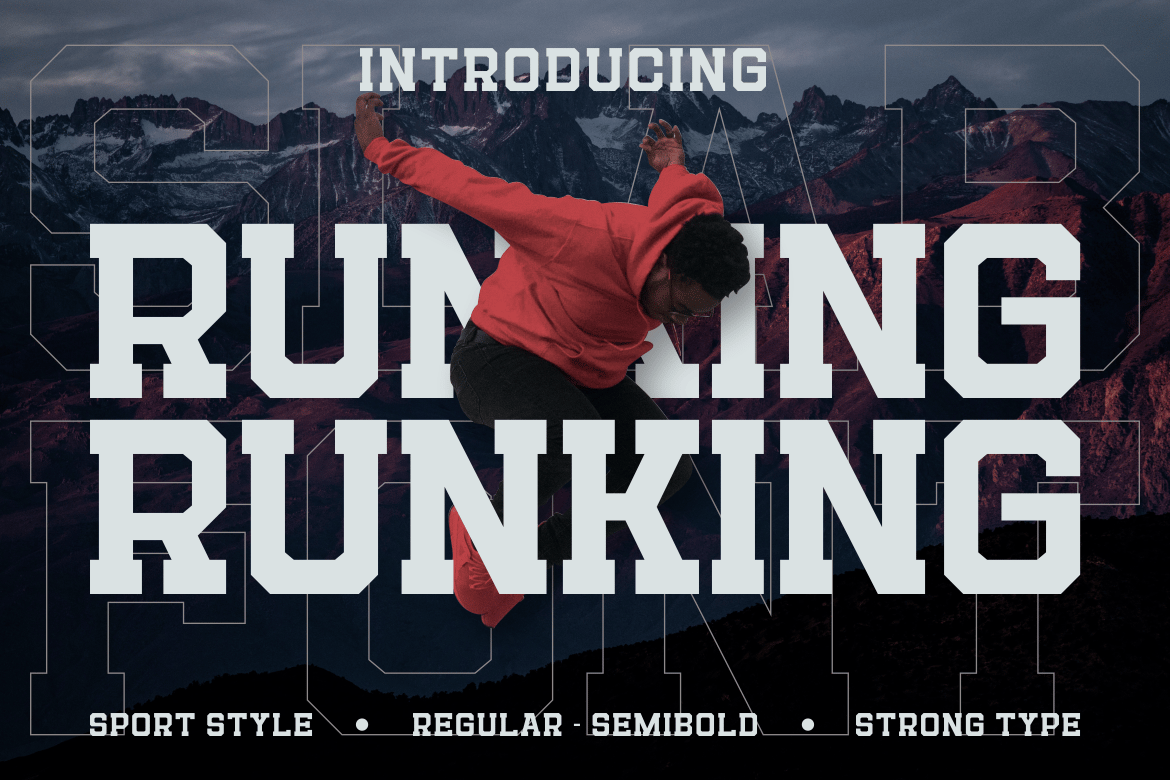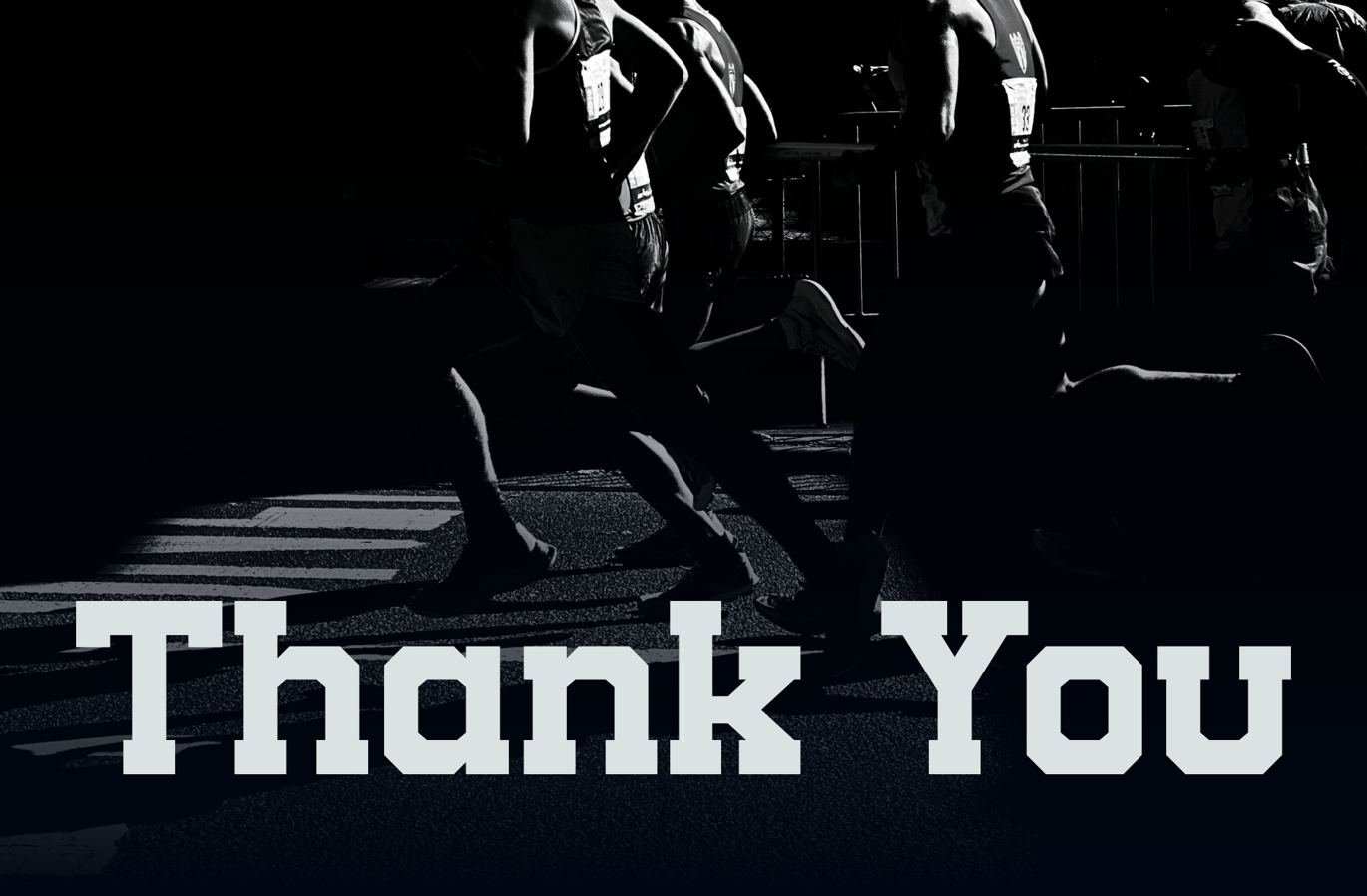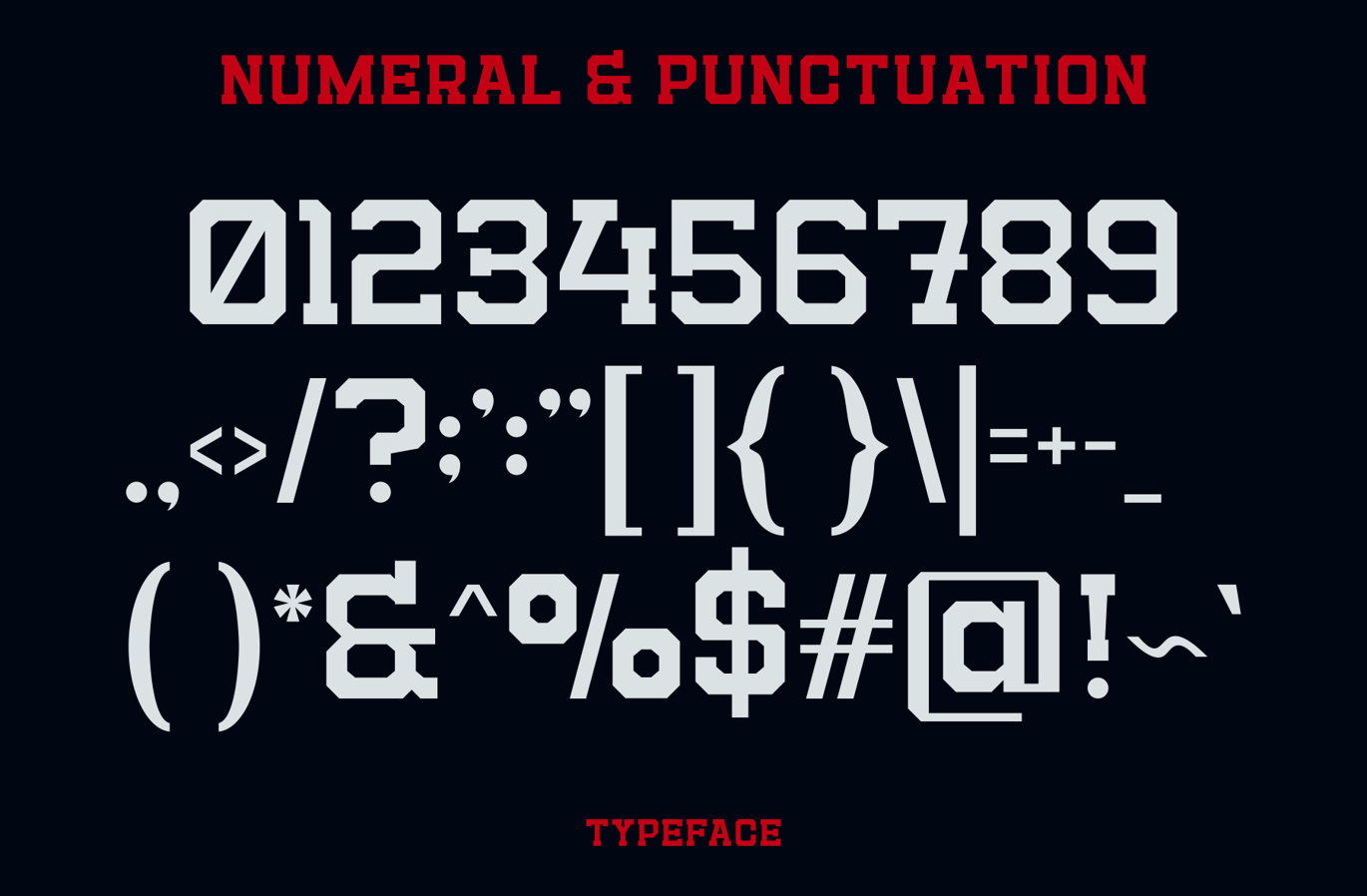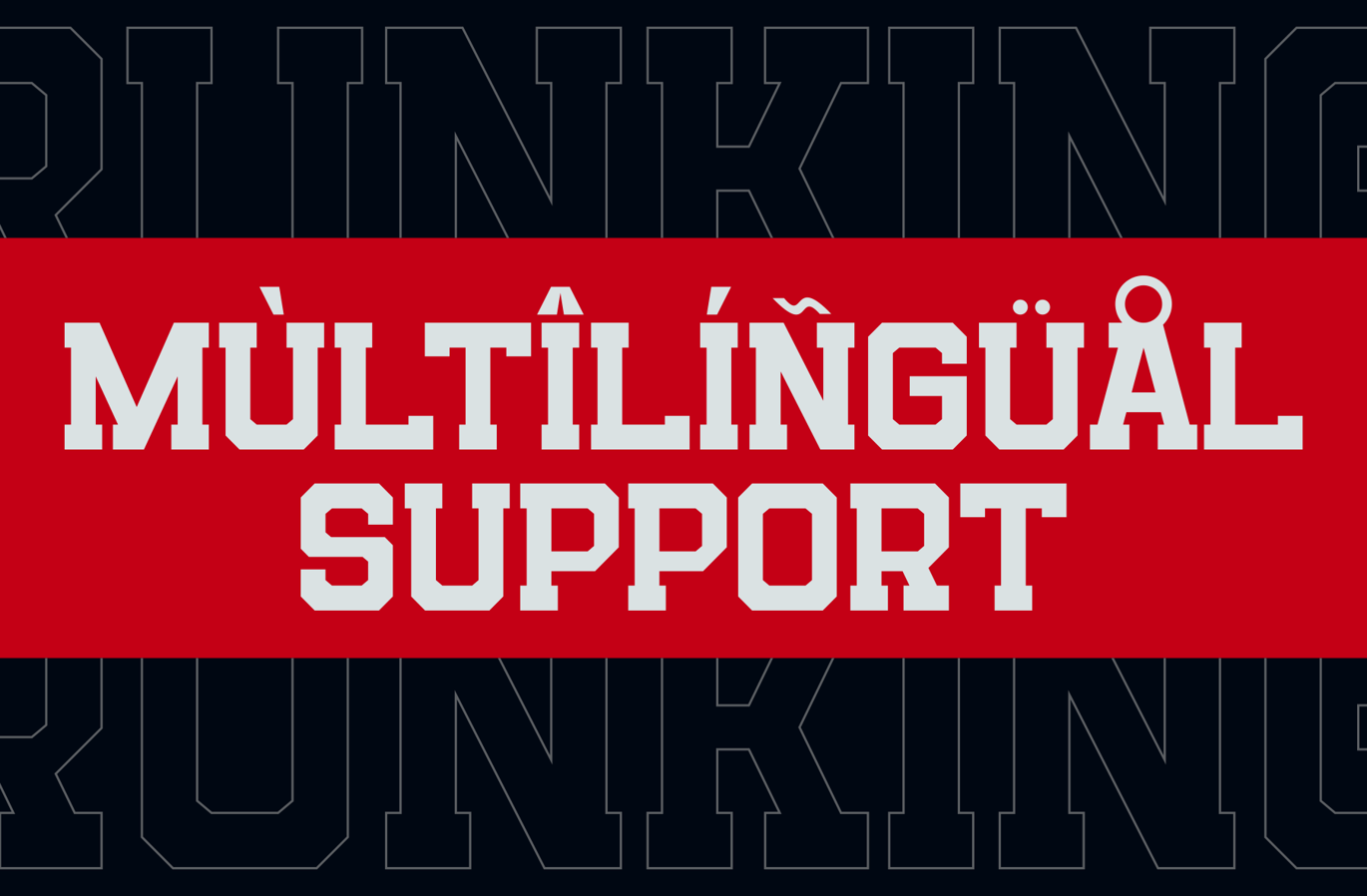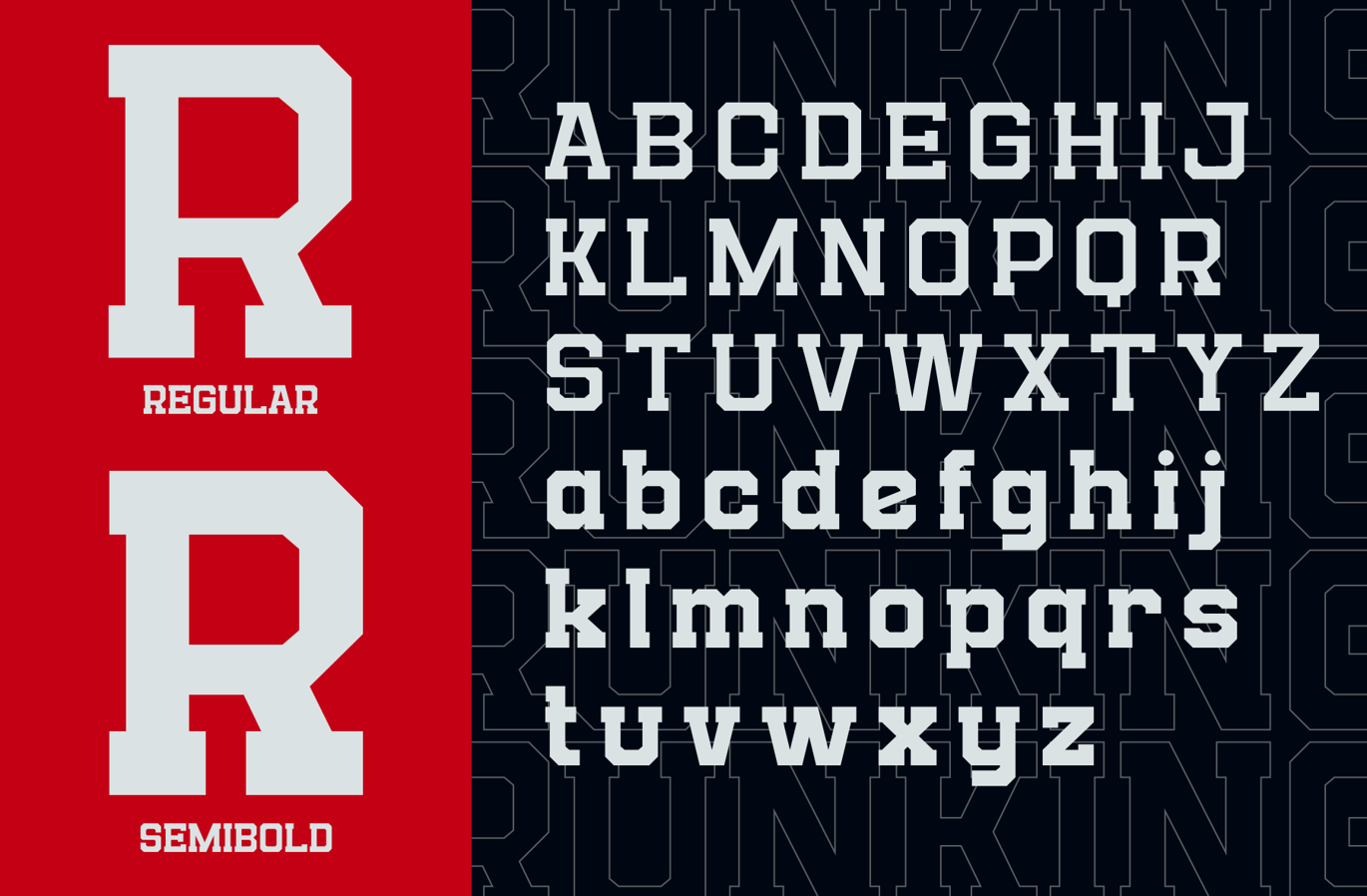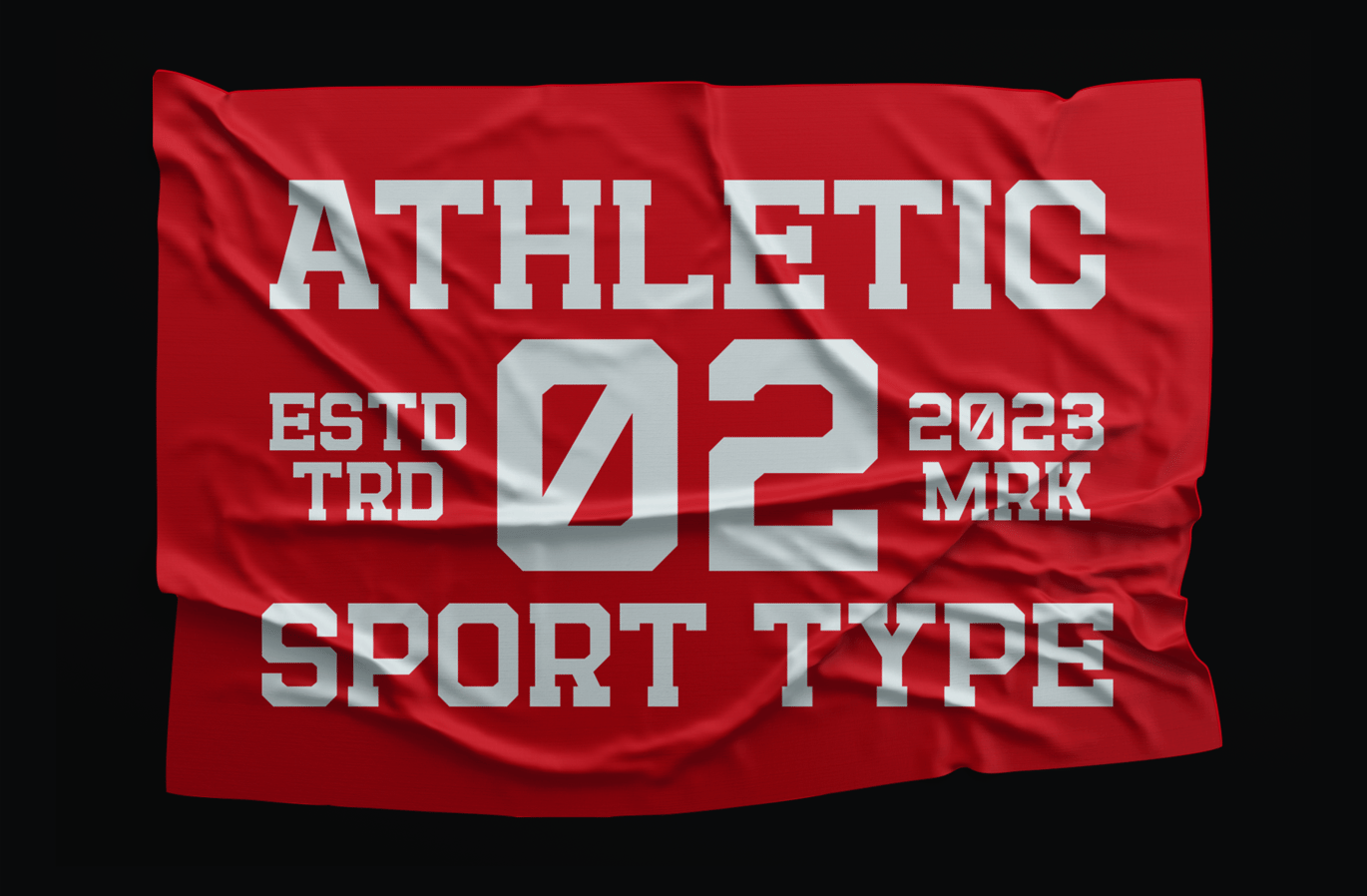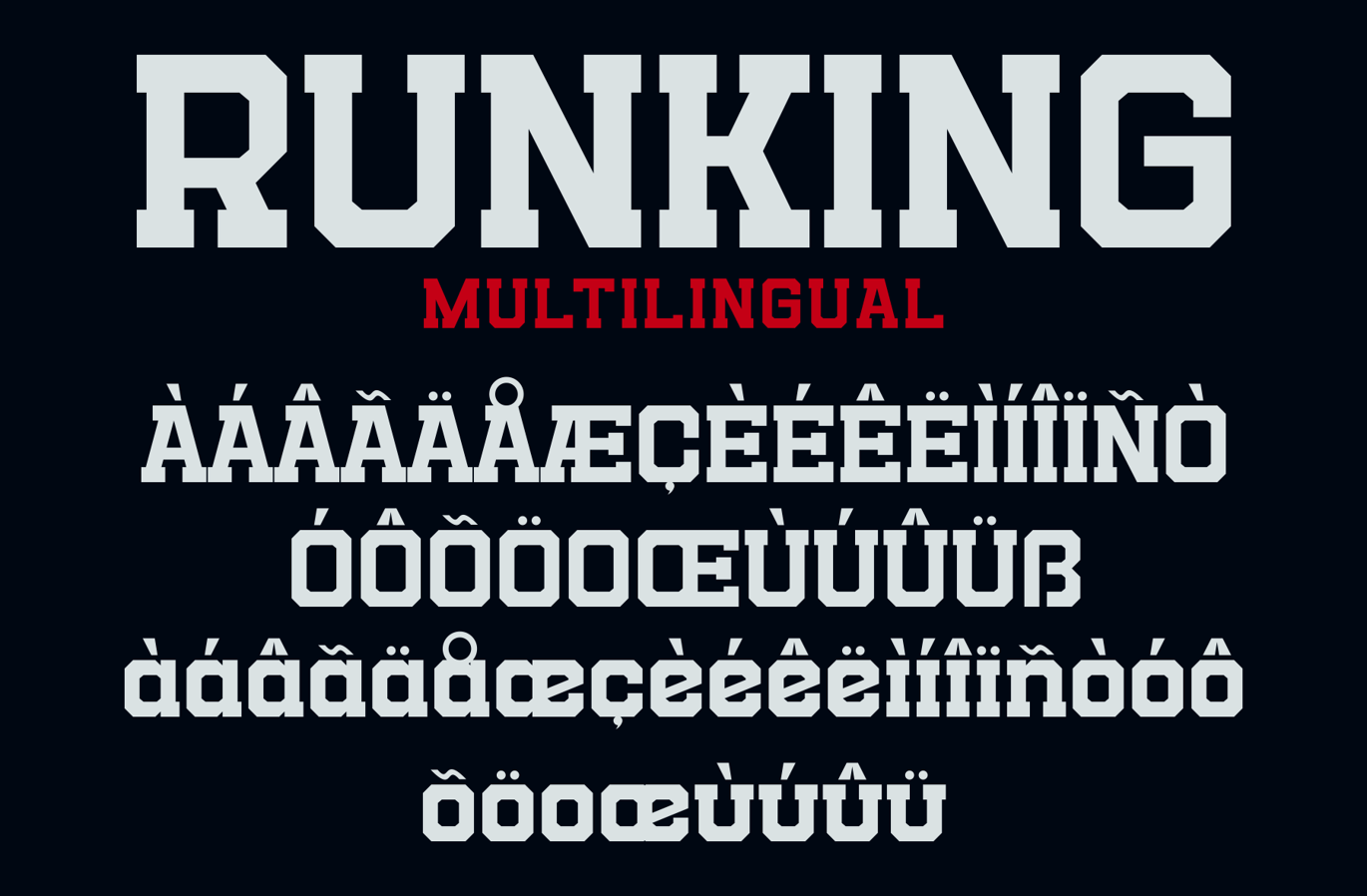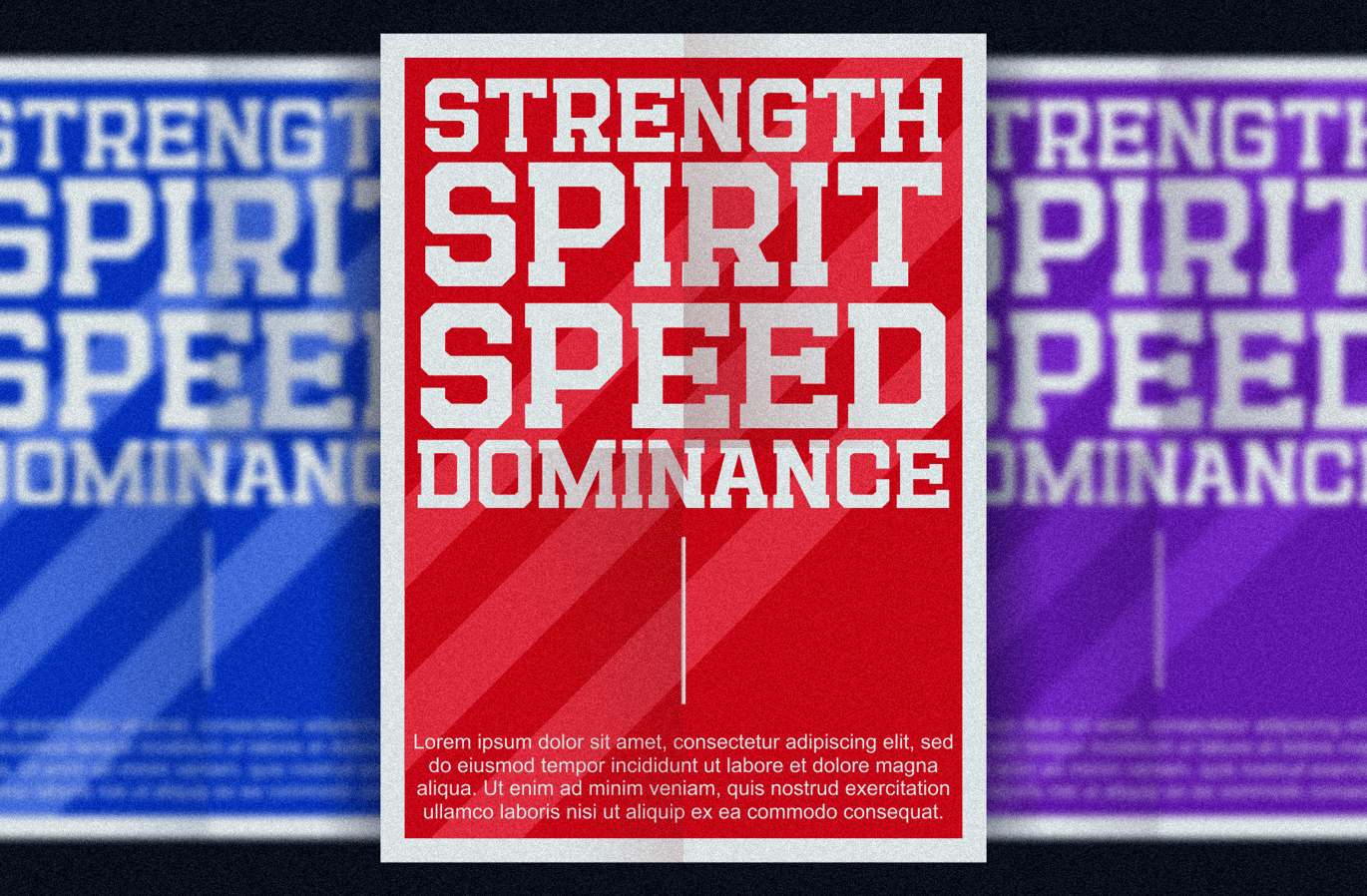
Runking – A Modern Sport Font
Introducing our new product Runking Font – Modern Font
Runking Font – Modern Font is a bold and authentic display font. The font is suitable for any branding project like logo, Template Design, Product and many more. outstanding in a wide range of contexts.
- REGULAR & SEMIBOLD